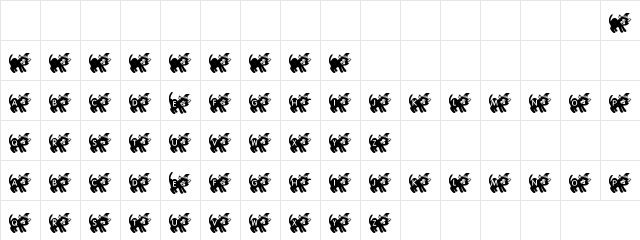
Blacky Cat Regular
Design Context for Blacky Cat Typeface
Blacky Cat is a composed and adaptable typeface that performs quietly and consistently across a wide range of design contexts.